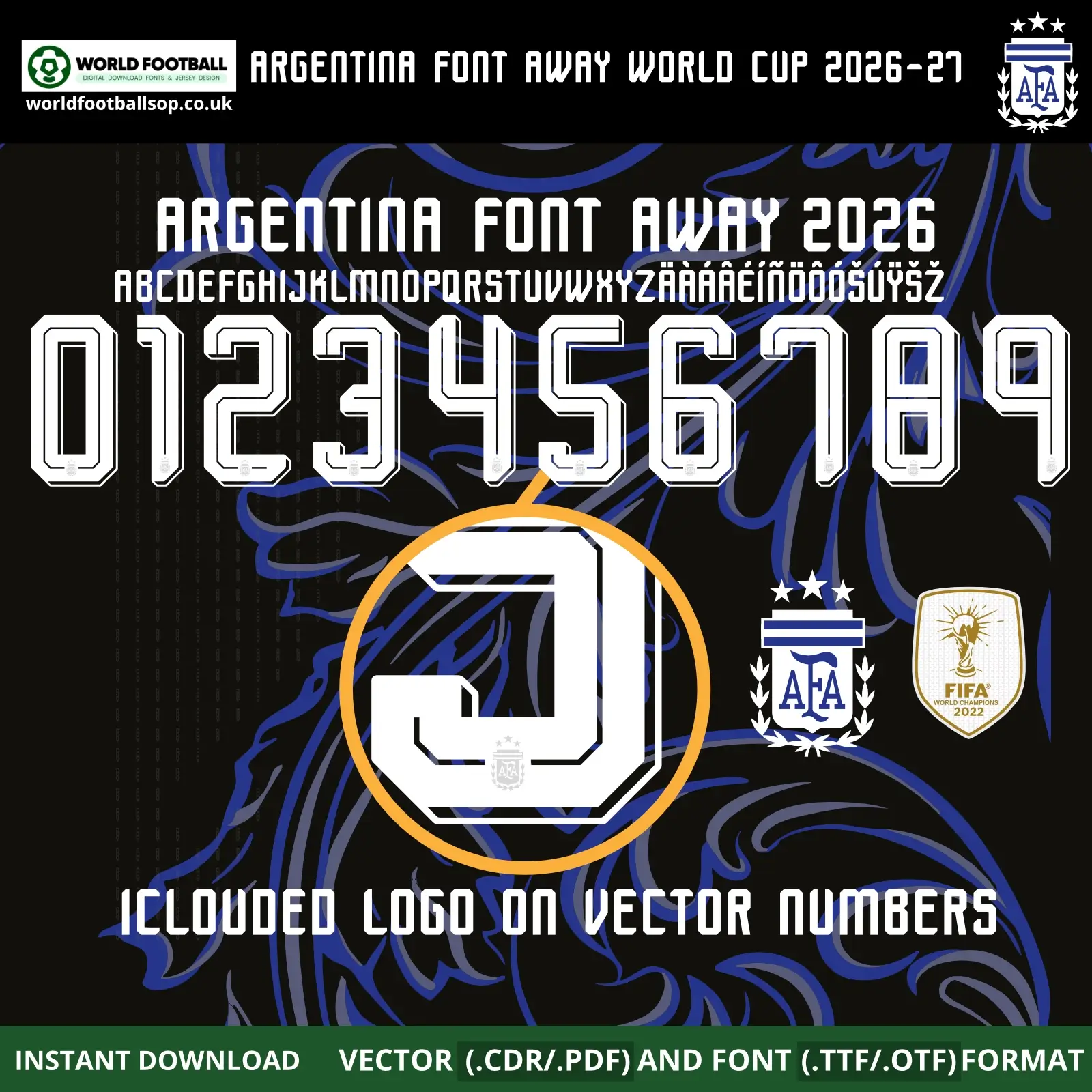
Argentina Away World Cup 2026 font inspired by Adidas' angular away kit typography. Includes TTF, OTF and vector files (AI/CDR/PDF) for full A-Z letters and 0-9 numbers. Instant digital download for custom Albiceleste jerseys.
Argentina Away World Cup 2026 Font - Adidas‑inspired Jersey Numbers
The Argentina Away World Cup 2026 font kit captures the sharp, angular Adidas typeface designed specifically for away kits at the 2026 World Cup. With bold blocky forms and intricate line details, it perfectly matches the retro Trefoil‑era aesthetic seen on Argentina's away shirts. Ideal for fans recreating Messi 10 jerseys or designing tournament graphics.​
Supplied in multiple formats for seamless use across design platforms, this font includes the full character set with Spanish accents essential for Argentine names. The white lettering with blue outlines on black backgrounds in the previews reflects the official away kit color scheme.
• Complete uppercase A-Z, numbers 0-9, accents (Á, É, Í, Ñ, Ó, Ú, Ü)​​
• Preview examples: Number sets and "MESSI 10" on away kit mockup
Design highlights
• Authentic World Cup look: Matches Adidas' bespoke 2026 away font with angular cuts and 3D detailing​
• High contrast: White/blue on black for maximum visibility​​